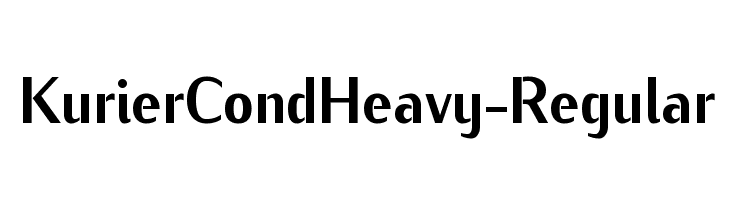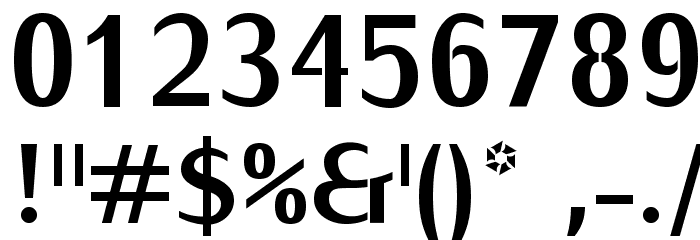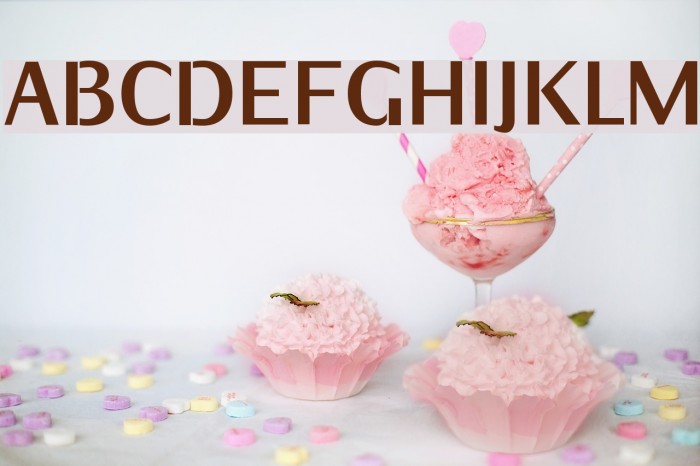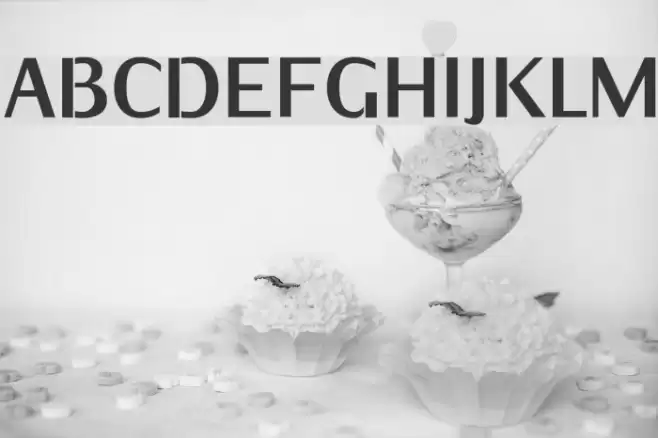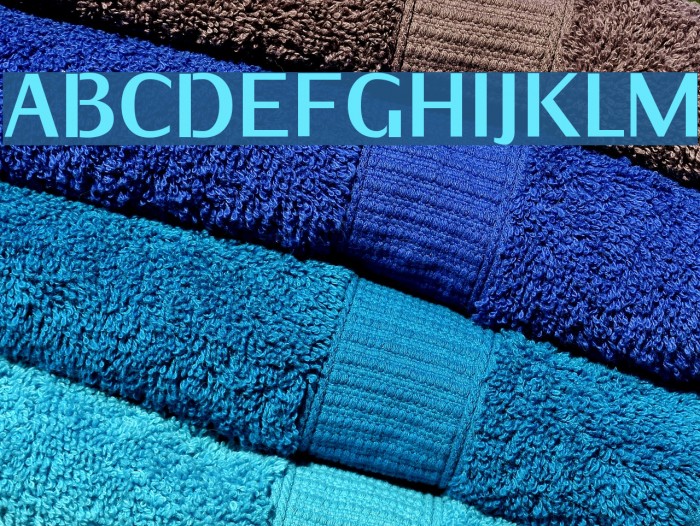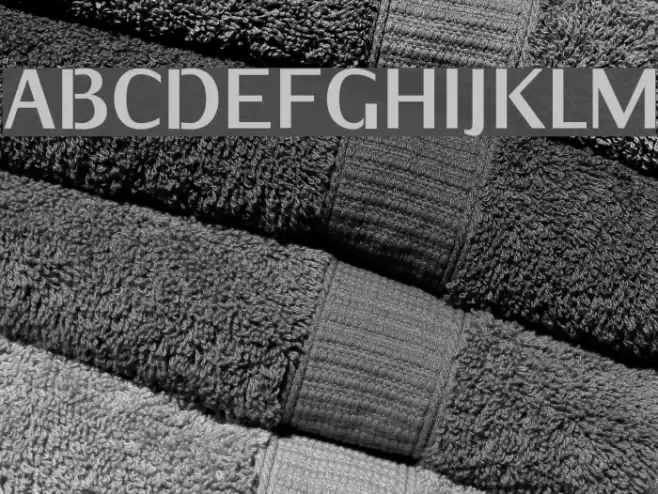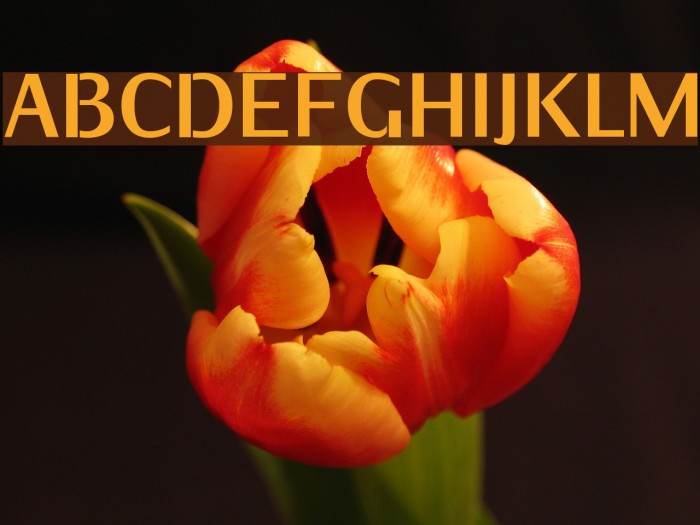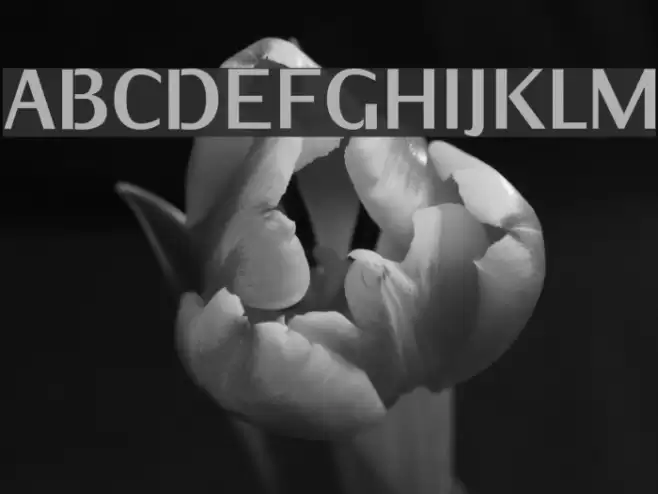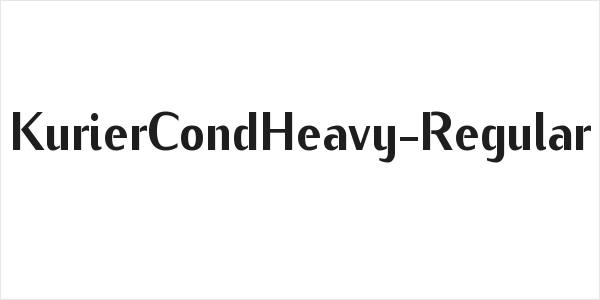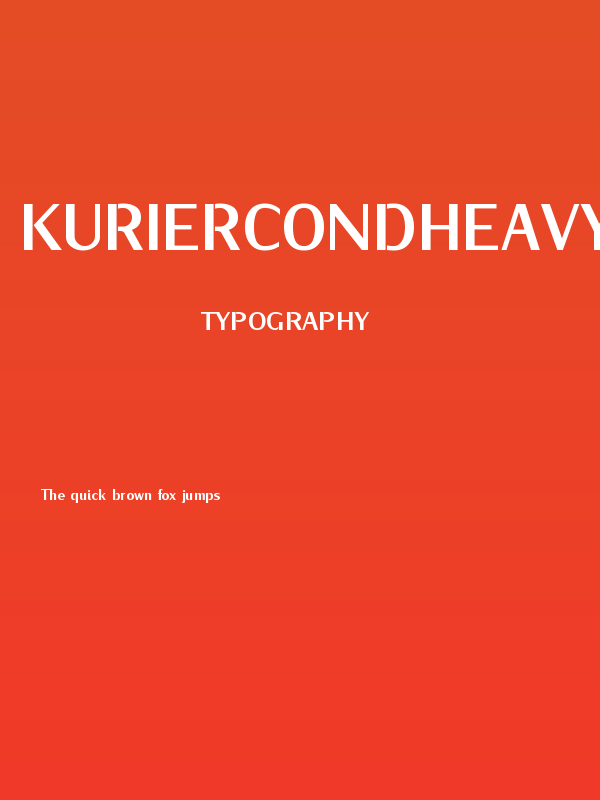
KurierCondHeavy-Regular Font
KurierCondHeavy-Regular Description
This font features a bold and condensed design, characterized by strong, clean lines and a modern aesthetic. The uppercase letters are tall and commanding, while the lowercase letters maintain a consistent height, ensuring readability. The numerals are clear and distinct, making them suitable for various applications. Special characters are well-defined, adding versatility to the font's use. The overall style is contemporary, with a slight geometric influence, making it ideal for impactful headlines and attention-grabbing text.
| Use Case | Headlines, Logos, Advertising |
| Proposed Projects | Ideal for branding, advertising, headlines, and editorial design where a strong visual impact is needed. |